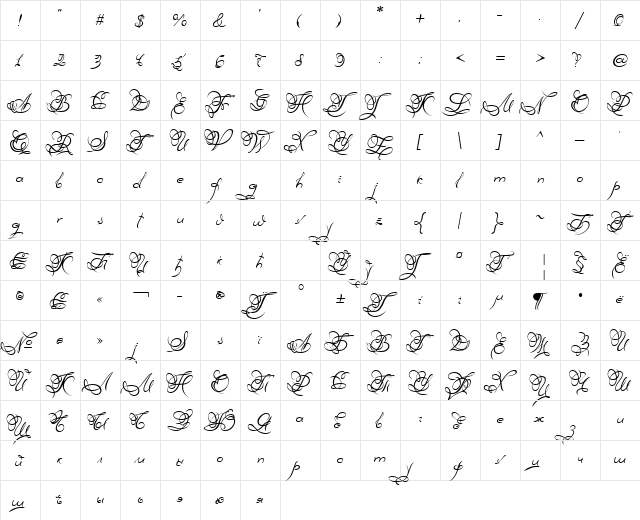
DianaCTT Regular
| Foundry | ParaType,Inc. |
| Designer | Sergey Volhonsky |
Design Context for DianaCTT Typeface
DianaCTT is a composed and adaptable typeface that performs quietly and consistently across a wide range of design contexts.